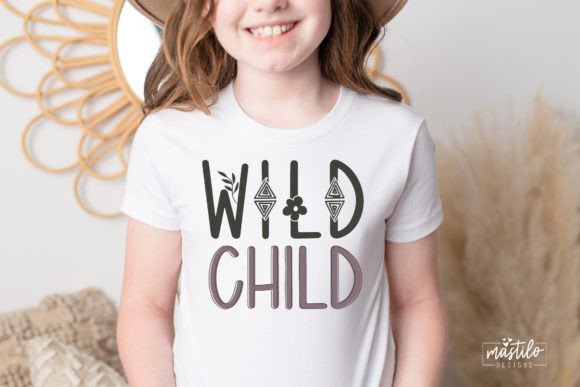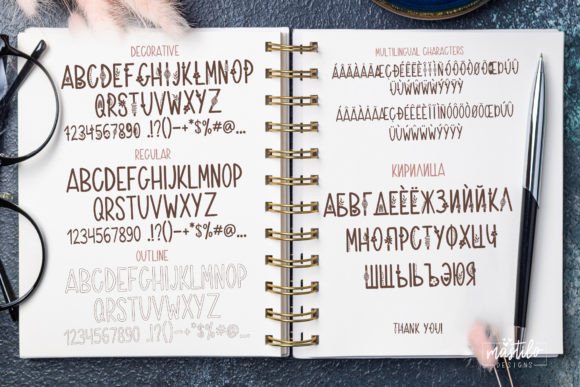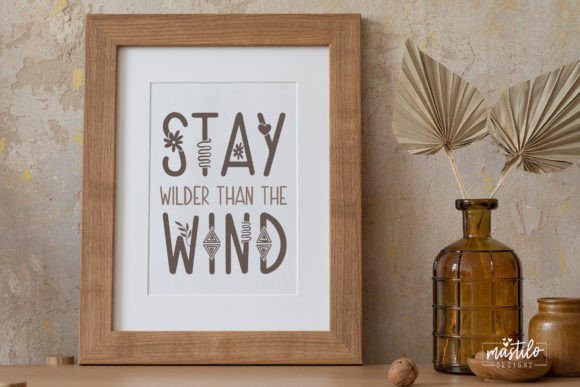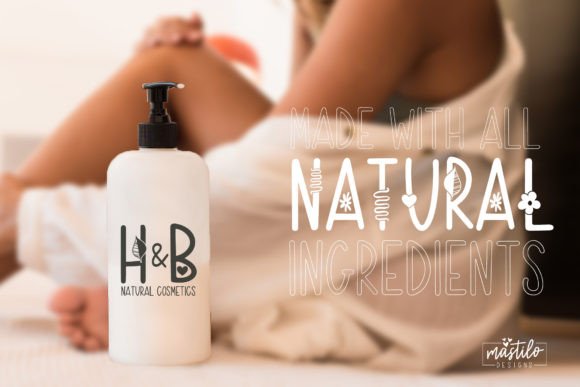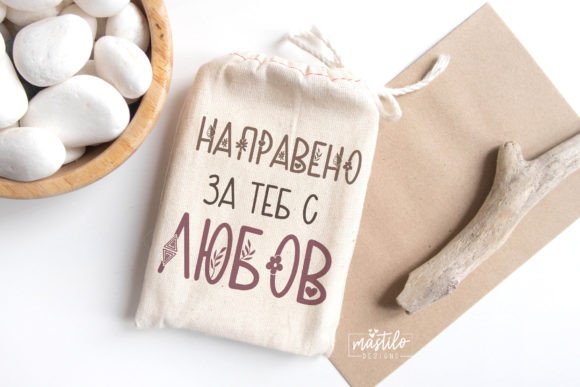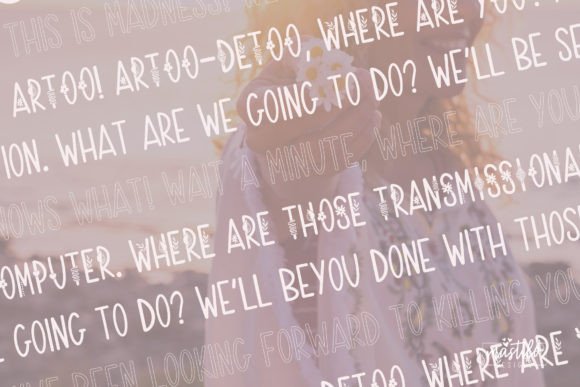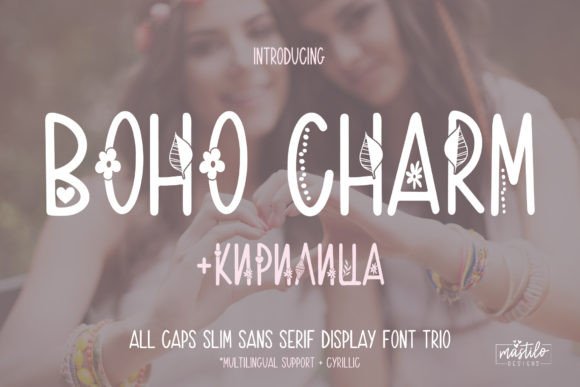
Introducing Boho Charm Font: Elevate Your Designs with a Touch of Retro Elegance
Are you on the hunt for a font that exudes a bohemian vibe with a dash of retro charm? Look no further than Boho Charm, a stunning slim hand-drawn all-caps font trio that’s perfect for designers and crafters alike. This versatile font is designed to add a touch of elegance and sophistication to all your projects, from logos and branding to social media templates and home decor.
What is Boho Charm Font?
Boho Charm is a carefully crafted font trio that embodies the essence of bohemian style with a retro twist. The slim and hand-drawn all-caps letters are perfect for creating visually appealing designs that are both modern and nostalgic. The font’s unique charm lies in its ability to evoke a sense of free-spiritedness and creativity, making it an ideal choice for designers and crafters who want to add a personal touch to their work.
Key Features of Boho Charm Font
- Slim and Hand-Drawn Design: Boho Charm features slim and hand-drawn all-caps letters that give your designs a delicate and sophisticated look.
- Boho Retro Touch: The font’s bohemian vibe with a retro twist adds a unique charm to your designs, setting them apart from the rest.
- Versatile and Multi-Purpose: Boho Charm is a versatile font that can be used for a wide range of projects, from logos and branding to social media templates and home decor.
Uses of Boho Charm Font
Boho Charm is a versatile font that can be used for a wide range of projects, including:
- Logos and Branding: Create stunning logos and branding materials that reflect your brand’s personality and style.
- Retro Shirt Designs and Apparel: Design eye-catching retro-style shirts and apparel that are perfect for casual wear.
- Stickers and Phone Cases: Add a touch of boho charm to your stickers and phone cases with this unique font.
- Home Decor: Use Boho Charm to create beautiful home decor items, such as wall art, quotes, and posters.
- Social Media Templates and Instagram Quotes: Elevate your social media game with stunning templates and quotes that showcase your brand’s personality.
- Cricut and Silhouette Projects: Use Boho Charm with your Cricut or Silhouette machine to create custom vinyl signs, iron-on designs, and more.
- Procreate and Digital Art: Add a touch of boho charm to your digital art with this versatile font.
Why Choose Boho Charm Font?
Boho Charm is a unique and versatile font that offers a range of benefits, including:
- Unique and Eye-Catching Designs: Boho Charm helps you create designs that stand out from the crowd and grab attention.
- High-Quality Design: Boho Charm is designed with high-quality and precision, ensuring that your designs look professional and polished.
Boho Charm is a stunning slim hand-drawn all-caps font trio that’s perfect for designers and crafters who want to add a touch of bohemian charm to their work. With its unique design, versatility, and ease of use, Boho Charm is an ideal choice for a wide range of projects, from logos and branding to social media templates and home decor. So why wait? Get your hands on Boho Charm today and elevate your designs with a touch of retro elegance!